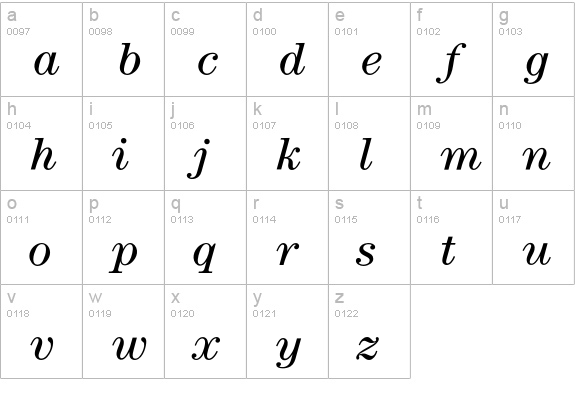
CenturyBookItalic Font Details
CenturyBookItalic is a refined and elegant typeface that exudes sophistication and professionalism. Its slanted italic style adds a touch of flair while maintaining readability and clarity. The graceful curves and subtle strokes make this font perfect for adding a touch of class to any project, whether it be for print or digital use. What sets CenturyBookItalic apart is not only its timeless design, but also the fact that it is available for free download at FontsMarket.com. This means that you can easily access this premium font without any cost, making it a valuable addition to your font library. Whether you're working on a branding project, designing invitations, or creating a stunning website, CenturyBookItalic is the perfect choice for adding a touch of sophistication and style. Download it for free today and elevate your designs with this exquisite typeface.